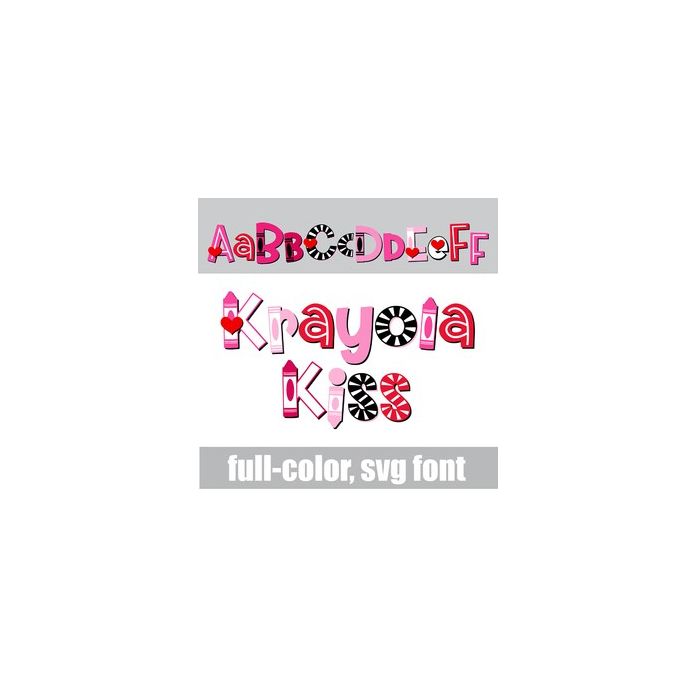
This full-color font features a crayon-style lettering in a Valentine color palette and hearts. There is an alt case w/ additional colors you can access through your system or Silhouette's glyph map.